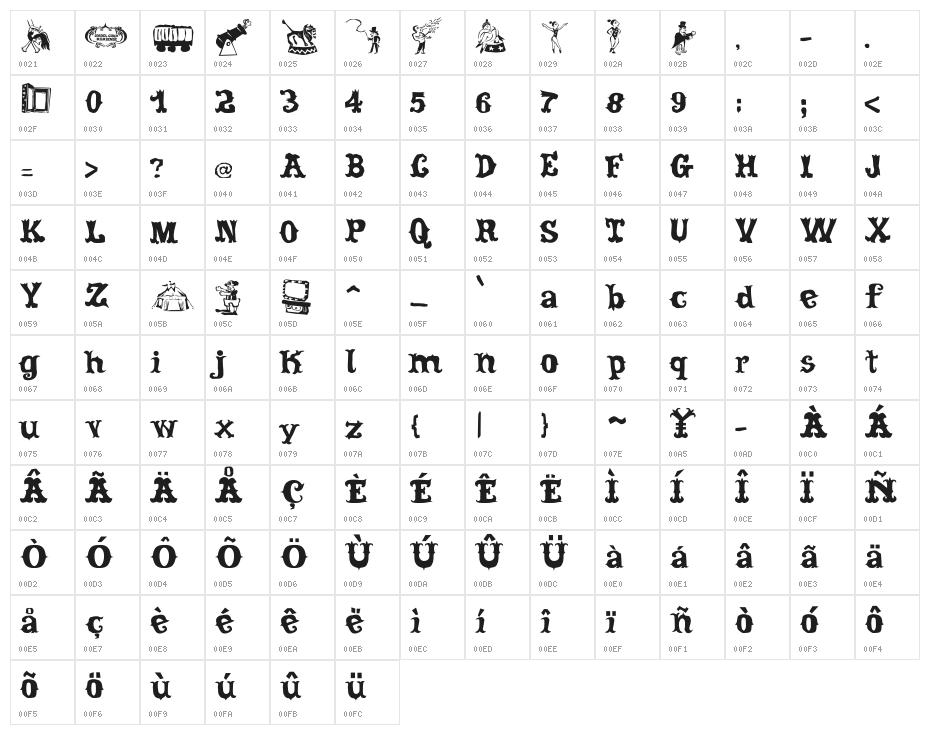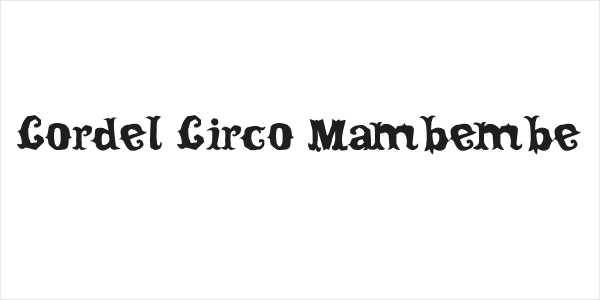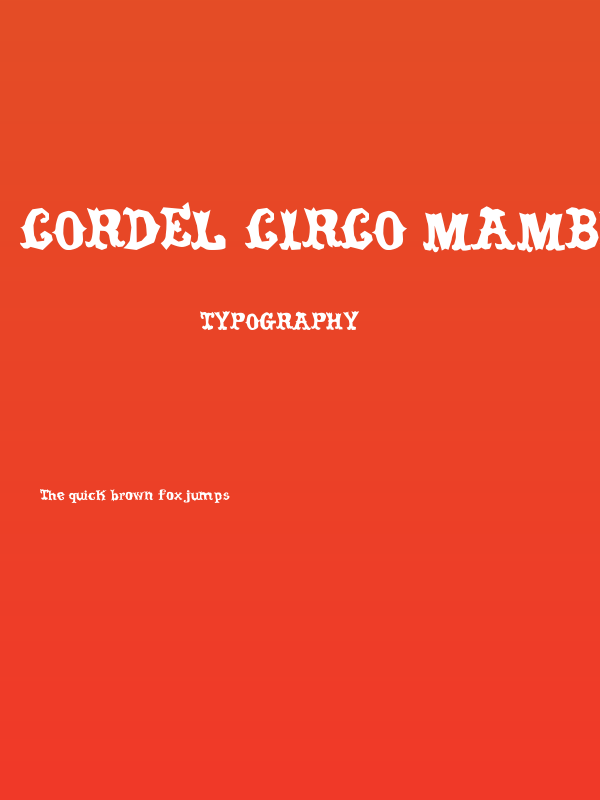
Cordel Circo Mambembe Font
Cordel Circo Mambembe Description
This font features a playful and whimsical design, reminiscent of traditional circus and folk art styles. The characters are bold and have a hand-drawn quality, with exaggerated serifs and decorative elements that give them a lively and dynamic appearance. The uppercase letters are particularly striking, with unique flourishes that add to the font's charm. The lowercase letters maintain the same playful style, ensuring consistency throughout. Numbers and special characters are equally expressive, making this font suitable for creative and artistic projects.
| Use Case | Headlines, Posters, Artistic projects |
| Proposed Projects | Ideal for posters, children's books, event invitations, and any project requiring a playful, artistic touch. |